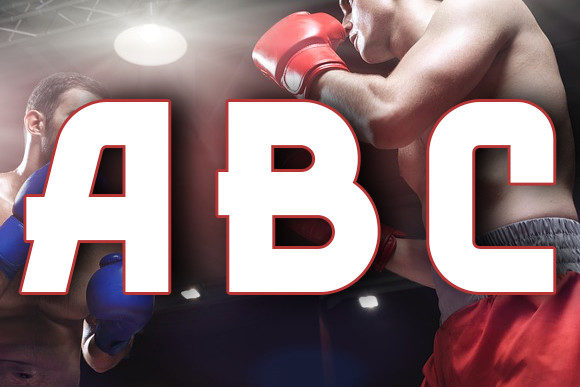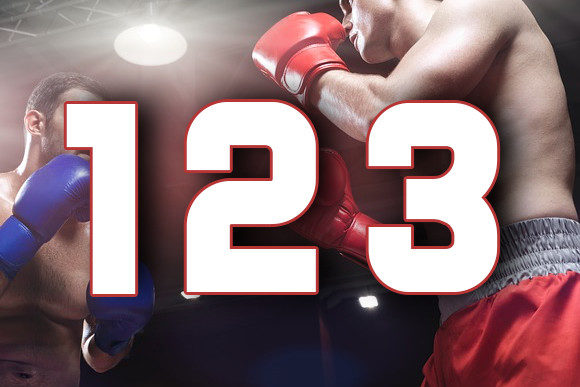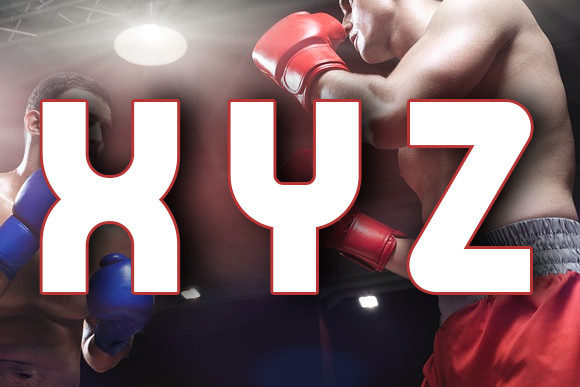
Introduction to Rivalry Font
Have you ever found yourself in the midst of a creative project, frantically searching for the perfect font to bring your design to life? The struggle is real, but what if I told you there’s a game-changer in the world of design resources? Enter the Rivalry Font, a bold and eye-catching display font that’s about to become your new go-to.
This stunning all-caps font is not just a trend, but a valuable addition to any designer’s toolkit. Whether you’re working on a digital design project, crafting a unique greeting card, or presenting a new idea, the Rivalry Font is sure to make an impact. With its sleek design and high-quality aesthetic, it’s the perfect choice for anyone looking to elevate their creative project.
Key Features of Rivalry Font
- Unique, bold, and modern font style with a transparent background, perfect for adding a touch of competition to your designs.
- Includes 12 different styles and weights, allowing for a wide range of creative expressions.
Honest Review: Rivalry Font
I recently stumbled upon the Rivalry Font, and I must say it’s been a great addition to my design resources. As a designer, I’m always on the lookout for unique and high-quality fonts that can elevate my creative projects.
Here are some things that work well with the Rivalry Font:
- ✨ Its bold and modern design makes it perfect for creating attention-grabbing headlines.
- ✨ The font is highly customizable, allowing me to adjust the size, color, and style to fit my design needs.
- ⚠️ The font may not be suitable for designs that require a transparent background, as it may not render correctly.
- ⚠️ Some users may find the font too bold or overwhelming, so it’s essential to use it in moderation.
Overall, I’m impressed with the Rivalry Font. Its high quality and versatility make it a valuable addition to any designer’s toolkit. While it may have some limitations, I believe it’s well worth considering for your next creative project.
Tips for Getting the Most Out of Rivalry Font
Experiment with different font sizes, colors, and styles to create a unique look. Use the transparent background feature to add depth and visual interest to your design.
The Rivalry Font is suitable for various creative projects, including logos, brochures, posters, and social media graphics. Its high-quality design and transparent background make it an ideal choice for designers looking for a versatile font resource.